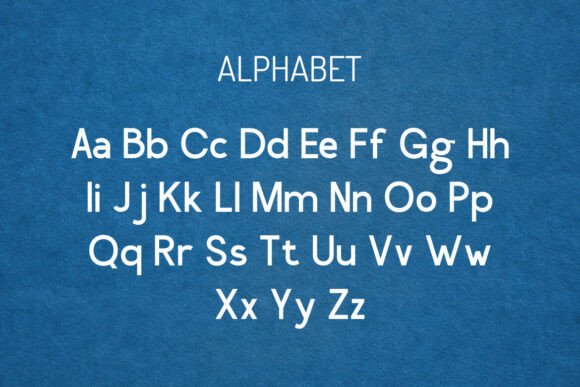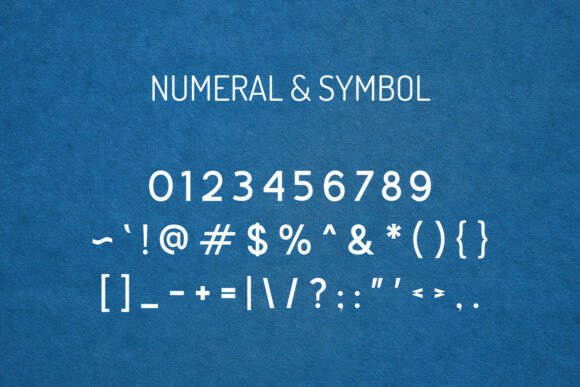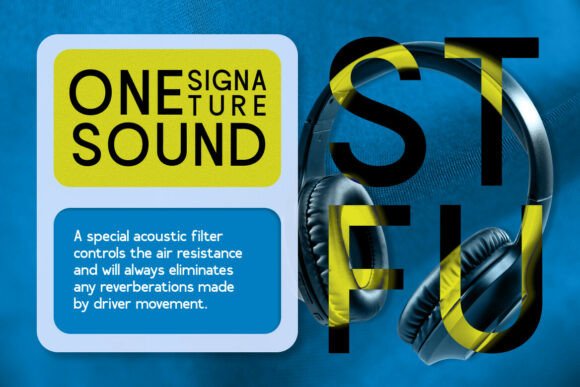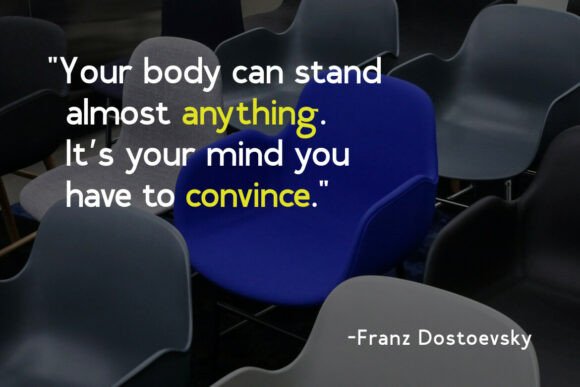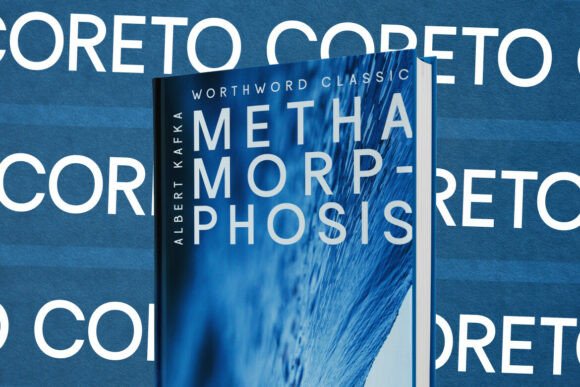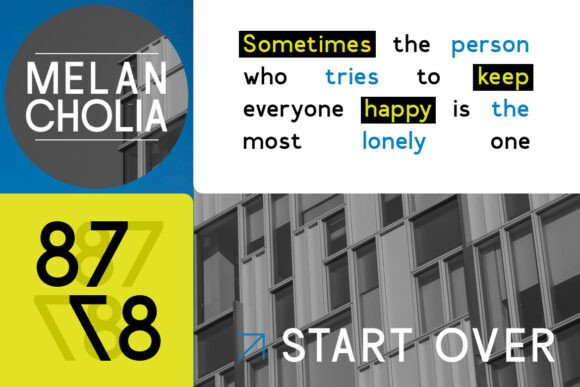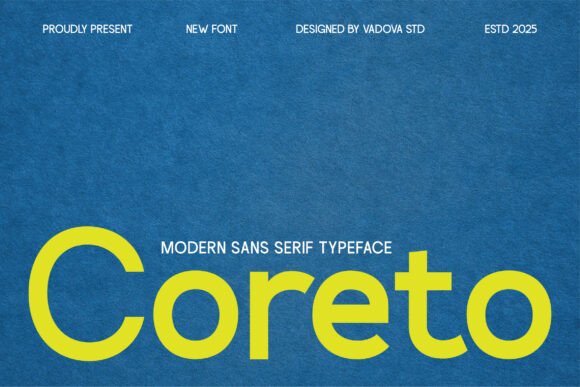
Introducing Coreto Font: The Epitome of Modern Sans Serif Elegance
In the realm of typography, fonts play a pivotal role in shaping the visual identity of a brand, product, or editorial content. Among the myriad of fonts available, Coreto stands out as a beacon of modernity and versatility. Designed with precision and an eye for detail, Coreto is a modern sans serif font that embodies the essence of clean lines and balanced proportions. This article delves into the characteristics, applications, and benefits of using Coreto in your design projects.
The Design Philosophy of Coreto
Coreto’s design is rooted in the principles of modern sans serif typography, with a focus on simplicity, legibility, and aesthetic appeal. Its clean lines and balanced proportions make it an ideal choice for designers seeking to make bold statements, create minimalist branding, or produce versatile editorial content. The subtle roundness infused in its design adds a touch of warmth and approachability, setting it apart from more austere sans serif fonts.
Versatility in Use
One of Coreto’s most significant advantages is its versatility. This font works beautifully across various applications, from large headings that demand attention to refined body text that requires clarity and readability. Whether you’re designing a sleek digital interface, crafting a print publication, creating marketing visuals, or developing a corporate identity, Coreto seamlessly integrates into your project, imparting a crisp, contemporary feel.
Inspirations and Influences
Coreto draws inspiration from elegant modern fonts that have defined the landscape of contemporary design. Its design team carefully curated elements that reflect a balance of formality and approachability, ensuring that Coreto fits seamlessly into a wide range of design contexts. This blend of influences makes Coreto a unique addition to any designer’s toolkit.
Applications of Coreto
Coreto’s adaptability makes it suitable for a myriad of applications:
• Digital Interfaces: Coreto’s clarity and legibility make it perfect for UI/UX design, enhancing user experience across websites, apps, and digital platforms.
• Print Design: From brochures and magazines to posters and business cards, Coreto brings a touch of modern sophistication to print materials.
• Marketing Visuals: Use Coreto to create compelling marketing materials that stand out, including banners, flyers, and social media graphics.
• Corporate Identities: Establish a strong brand presence with Coreto, ideal for logos, letterheads, and brand guidelines.
Benefits of Using Coreto
The benefits of incorporating Coreto into your design projects are multifaceted:
• Modern Aesthetic: Coreto lends a contemporary look to your designs, ensuring they feel fresh and current.
• Enhanced Readability: Its balanced proportions and clear lines enhance readability, making it suitable for both headings and body text.
• Versatility: Coreto’s adaptability means you can use it across various projects, reducing the need for multiple fonts.
• Professionalism: The font’s elegant design imparts a professional feel to your work, elevating your brand’s visual identity.
Coreto font represents a significant advancement in modern sans serif typography, offering designers a versatile, elegant, and highly legible font suitable for a wide range of applications. Its design philosophy, inspired by the clean lines and balanced proportions of contemporary fonts, makes it an invaluable asset for creating bold statements, minimalist branding, and versatile editorial content. Whether you’re a seasoned designer or a crafty DIY enthusiast, Coreto is poised to elevate your design projects with its crisp, contemporary feel.
As the design landscape continues to evolve, fonts like Coreto will play a crucial role in defining the visual identities of brands and publications. By incorporating Coreto into your typography arsenal, you’re not just selecting a font; you’re embracing a design philosophy that values clarity, elegance, and versatility.